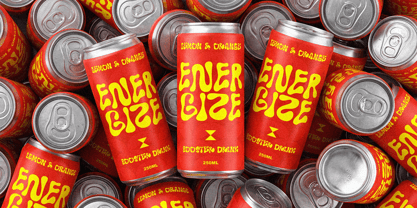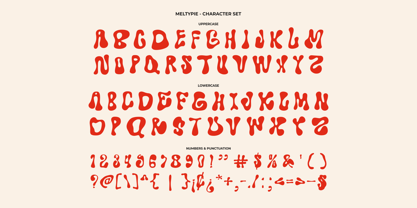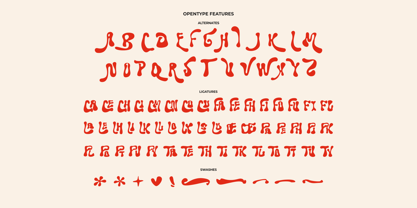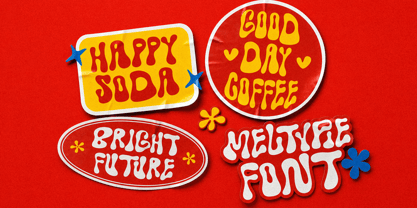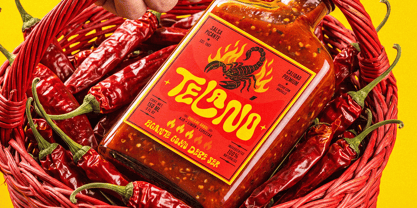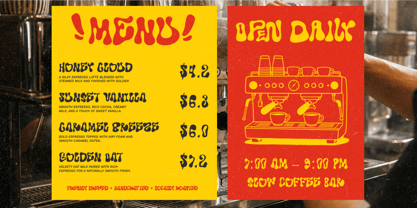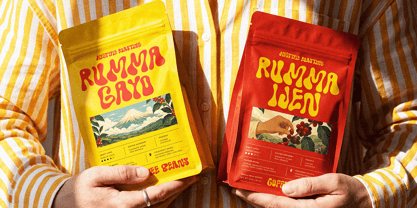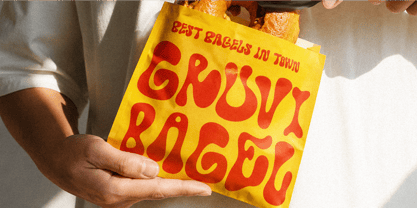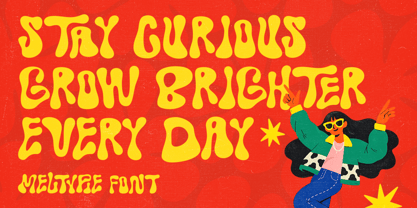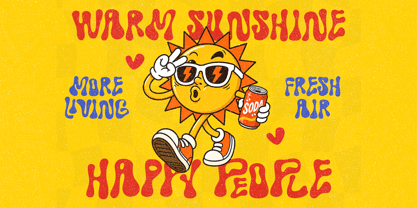
Meltypie
par Agny Hasya Studio
La famille de polices Meltypie a été conçue par Firman Maulana et publiée par Agny Hasya Studio. Meltypie contient 1 styles. En savoir plus sur cette famille
Looking for a Groovy Melted Display Font for Food Branding, Packaging, and Playful Logos?
Meet Meltypie, a playful melted display font made for food branding, café logos, product packaging, retro posters, merchandise, and expressive visual campaigns.
With chunky organic letterforms, flowing curves, wavy proportions, softened corners, and irregular melted details, Meltypie gives your typography a bold liquid rhythm with a funky retro personality.
Inspired by psychedelic lettering, vintage advertising, retro food packaging, and contemporary maximalist design, Meltypie is perfect for projects that need to feel groovy, playful, nostalgic, handmade, and impossible to ignore.
Perfect For
• Food and beverage branding
• Café and restaurant identities
• Coffee, bakery, and snack packaging
• Hot sauce and beverage labels
• Playful logos and expressive wordmarks
• Retro posters and editorial headlines
• Music artwork and festival graphics
• Streetwear and apparel designs
• Stickers, merchandise, and product labels
• Social media campaigns and digital promotions
• Lifestyle branding and maximalist visuals
• Bold display typography for creative campaigns
Why You’ll Love It
Meltypie combines friendly liquid shapes with bold display impact, helping your designs feel expressive without becoming difficult to use.
Its stylistic alternates, decorative ligatures, and playful swashes let you transform simple words into more distinctive custom-looking typography.
Mix the alternate characters to create memorable logos, groovy headlines, expressive packaging, and playful brand visuals with more personality and variation.
Bring bold, melted personality to your next logo, food package, beverage label, poster, merchandise, or social media campaign with Meltypie.